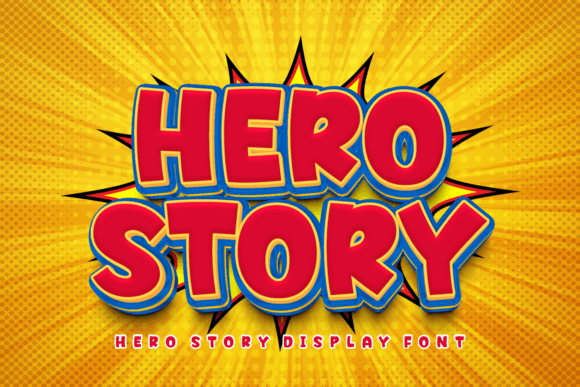
Introducing Hero Story Font, the perfect font for those looking to add a touch of magic to their design projects! Created by Creative Fabrica Fonts, this thick and chubby display font is bound to make your typography designs stand out from the crowd.
Are you tired of ordinary and mundane fonts? Hero Story is here to save the day! With its unique and eye-catching style, this font has the power to transform any design creation into something extraordinary. Whether you're working on book covers, magazines, kids' t-shirts, posters, product packaging, banners, flyers, or anything else, Hero Story will add that wow factor you've been searching for.
When it comes to creating captivating music video titles, Hero Story is the ultimate choice. Its bold and striking appearance will instantly grab your audience's attention, setting the perfect tone for your videos. Let your creativity flow as you craft mesmerizing titles that leave a lasting impression on viewers.
But what sets Hero Story apart from other fonts? Besides its visually appealing aesthetics, this font offers unbeatable versatility. It seamlessly adapts to different design styles and themes, making it suitable for a wide range of projects. Whether you're going for a vintage, modern, playful, or elegant look, Hero Story effortlessly fits the bill.
One of the most remarkable aspects of Hero Story is its ability to evoke emotions. The curvaceous and playful nature of this font instantly adds a sense of joy, excitement, and warmth to any design. It's like a burst of happiness captured in letterforms! Let your creativity run wild as you infuse your designs with a touch of magic and bring smiles to your audience's faces.
In addition to its captivating aesthetics, Hero Story is also a breeze to work with. Its smooth curves and clean lines ensure that your designs look polished and professional. Say goodbye to pixelated or distorted typography – Hero Story delivers nothing but perfection.